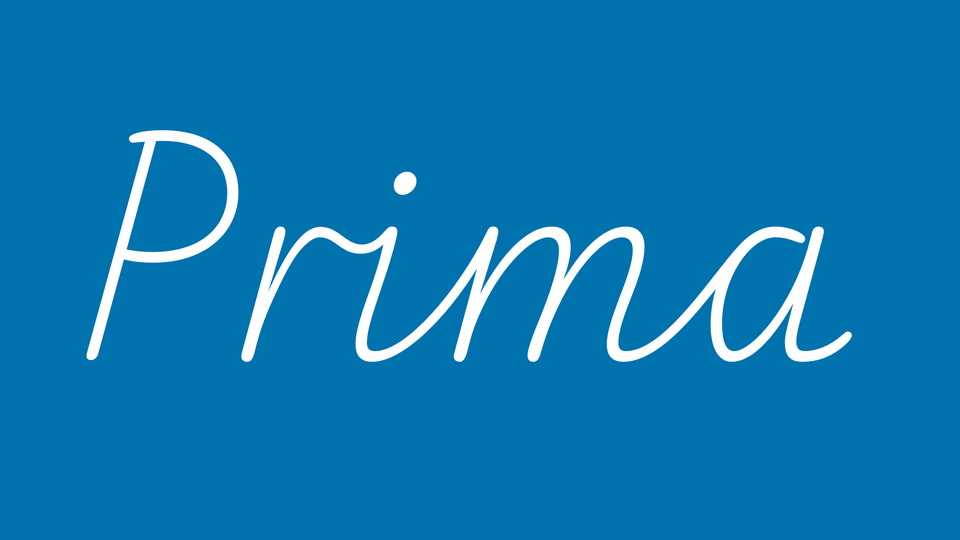
Download Prima font, a script typeface that has been designed to help in learning to read and write. In Prima, unconnected and cursive letterforms are closely related so that learners already know strokes and proportions when they advance from one style to the other.
Designer: Titus Nemeth